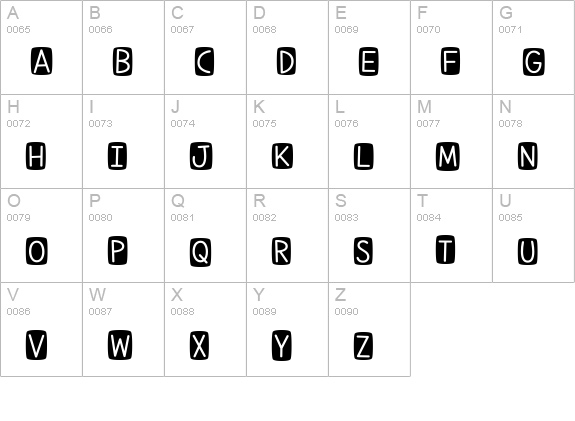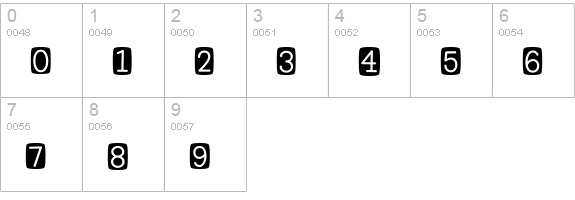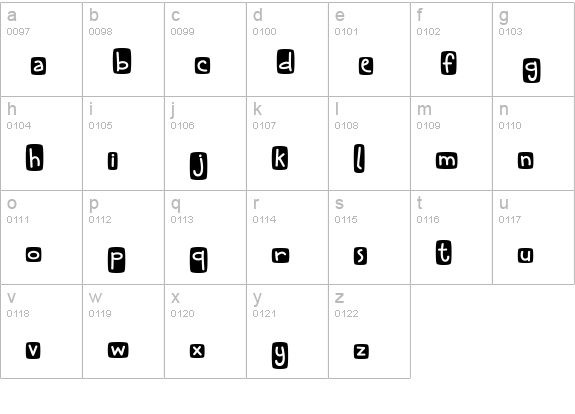
Cheddar Salad BTN Cameo Rev Font Details
Cheddar Salad BTN Cameo Rev font is a delightful and playful typeface that exudes a sense of whimsy and charm. With its unique design and eye-catching appearance, this font is perfect for adding a fun and quirky touch to your projects. The bold and rounded letters make a statement while remaining easy to read, making it versatile for a variety of uses. Best of all, Cheddar Salad BTN Cameo Rev font is available for free download at FontsMarket.com. Whether you're working on a creative project, designing a logo, or crafting invitations, this font is sure to add a touch of personality and flair. Don't miss out on the opportunity to enhance your designs with this charming and expressive typeface. Download Cheddar Salad BTN Cameo Rev font today and let your creativity shine!